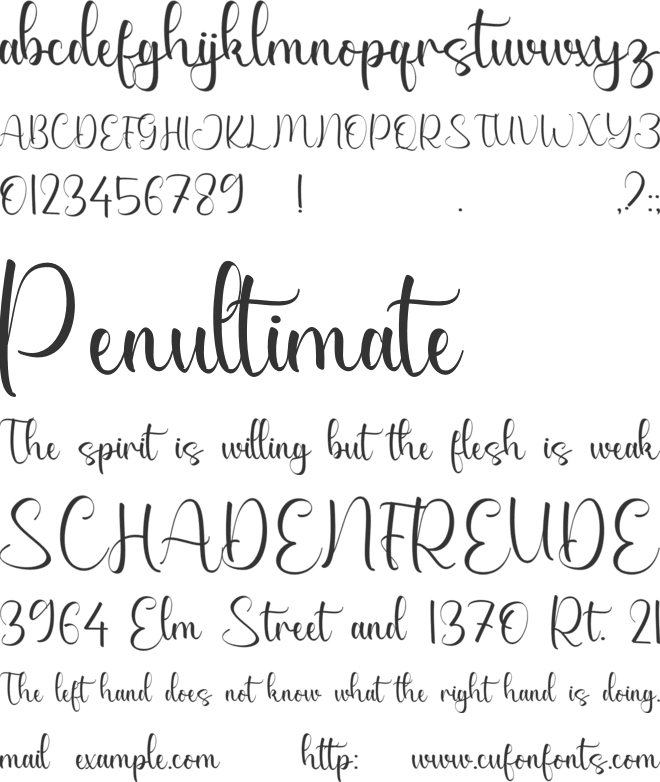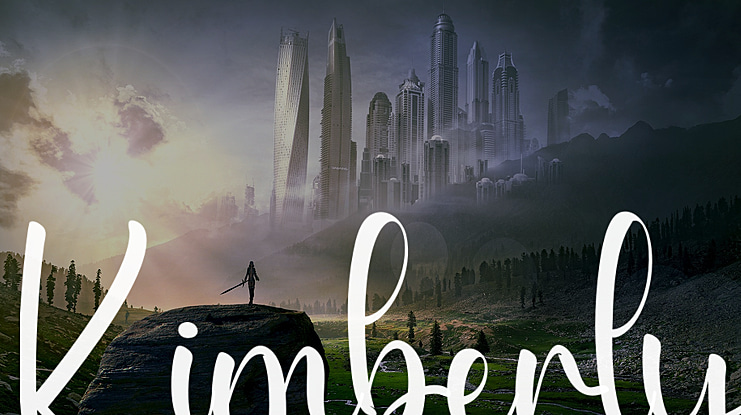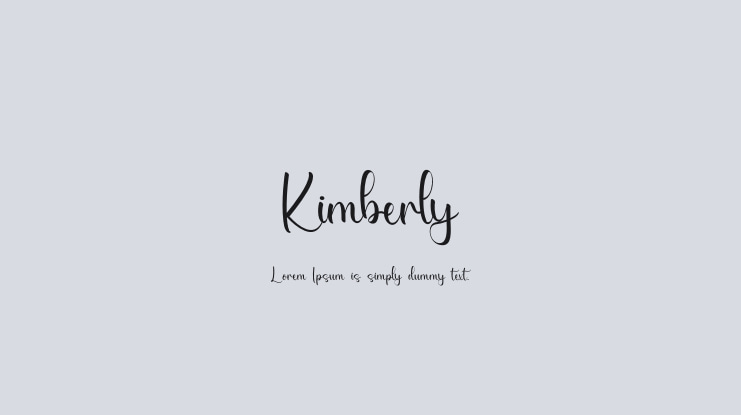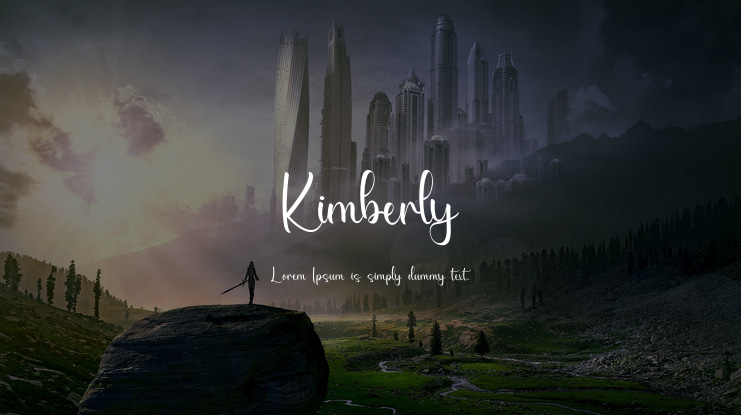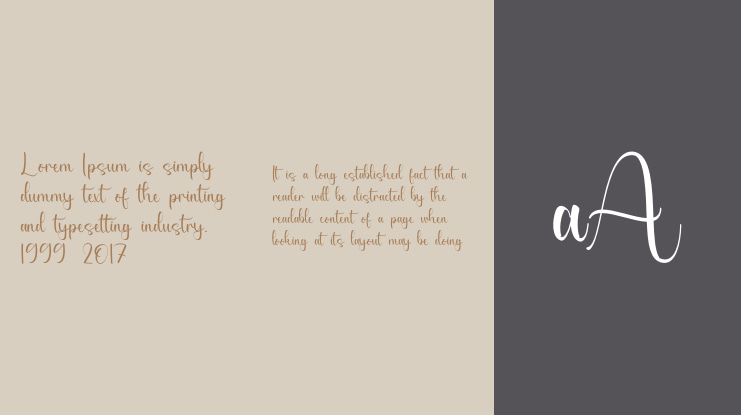
Kimberly Font
the latest style letters are perfect for wall displays, wedding invitations, social media post logos, advertisements, product packaging, product designs, labels, photography, watermarks, invitations, stationery, and any project that requires taste handwriting.